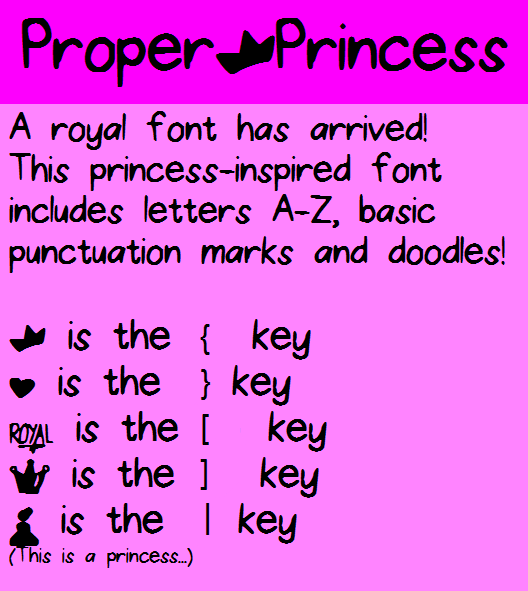
Font name: | Proper Princess |
Author: | Font Fabulous |
Note by Font Fabulous | |
A royal font has arrived! Proper Princess includes letters A-Z and basic punctuation marks. Don't forget the 4 super cute princess-themed doodles! A truly royal font for the royalties... |